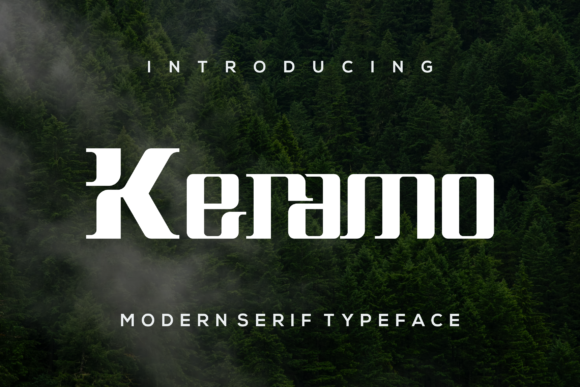
**Introducing Keramo: The Font That Embodies Strength and Authenticity**
In the realm of digital design, where every element holds the power to elevate or undermine, typography reigns supreme. It's the unsung hero that whispers messages, conveys emotions, and shapes perceptions. And when it comes to fonts that exude boldness and authenticity, none surpasses Keramo.
Crafted by the visionary hands of kalingga.albert, Keramo is more than just a font; it's an emblem of unwavering strength and genuine expression. Its crisp, sharp lines and unwavering structure lend an air of confidence to any design. Whether you're crafting a powerful logo, creating an eye-catching t-shirt, or injecting a touch of boldness into your sporting endeavors, Keramo is the font that will make your project stand out.
**A Font Forged in the Fires of Creativity**
Keramo was born from the fiery depths of inspiration, molded by the relentless pursuit of excellence. Its every curve and stroke has been meticulously designed to evoke an emotional resonance that transcends the digital realm. With Keramo, you're not merely adding text to your designs; you're infusing them with character, depth, and a touch of the extraordinary.
**A Versatile Font That Adapts to Your Every Need**
Like a chameleon in the digital jungle, Keramo possesses an uncanny ability to adapt to any design landscape. Its inherent versatility allows it to complement a myriad of styles and themes, from the sleek and modern to the rugged and vintage. Whether you're designing a cutting-edge tech logo, a vibrant t-shirt graphic, or an adrenaline-fueled sports banner, Keramo will effortlessly blend in, amplifying your message with unwavering style.
**A Font That Inspires and Empowers**
In a world where conformity often stifles creativity, Keramo stands as a beacon of individuality. Its unique character empowers you to break free from the mundane and embrace your distinctive voice. With Keramo as your typographic ally, you'll have the confidence to express yourself fully, creating designs that resonate with authenticity and leave a lasting impression.
**Embrace the Power of Keramo Today**
Keramo is more than a font; it's a gateway to a world of boundless creativity. It's an investment in your design arsenal, a tool that will empower you to create captivating visuals that speak volumes. So, don't hesitate to embrace the power of Keramo and elevate your designs to the next level.